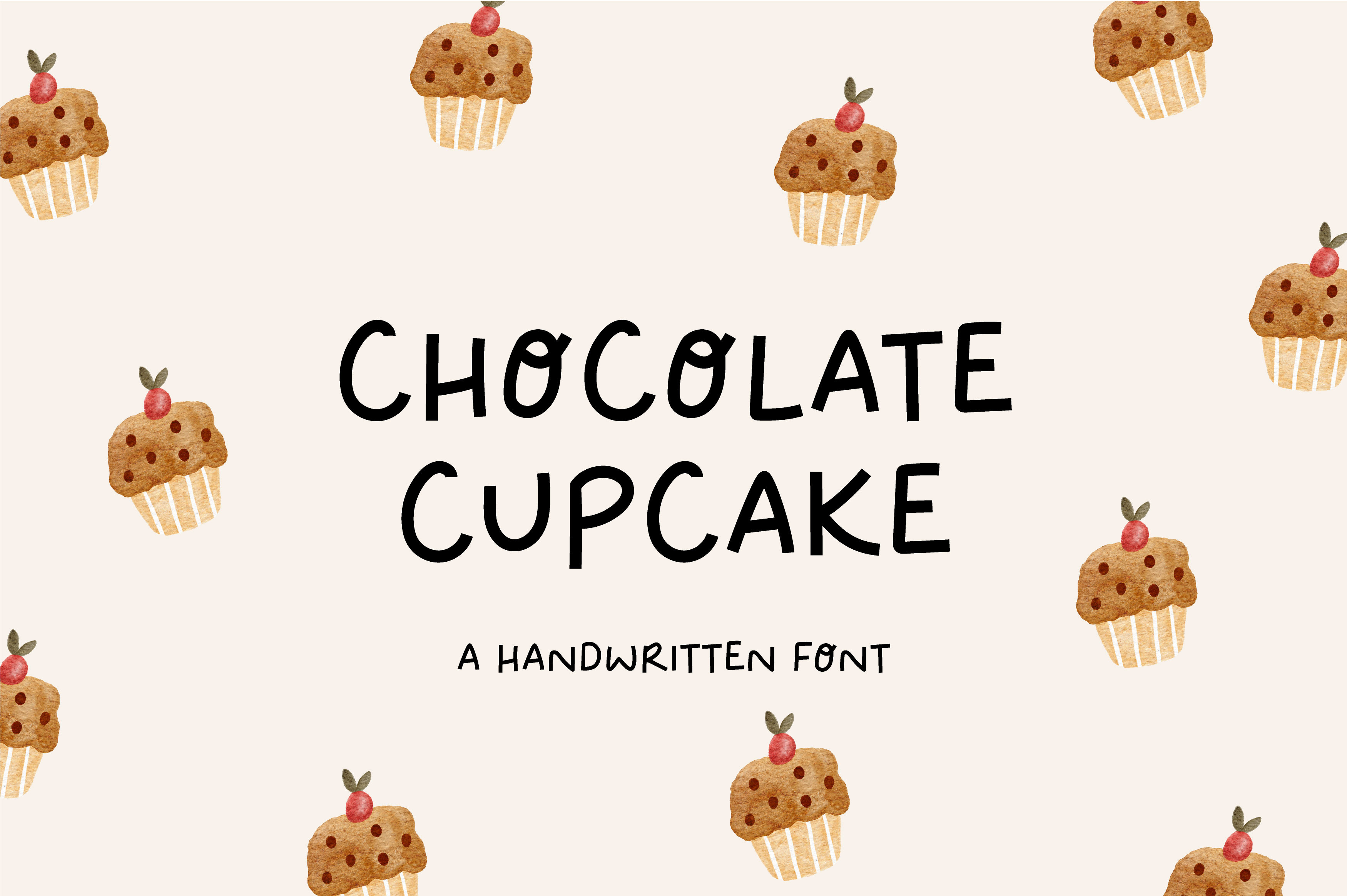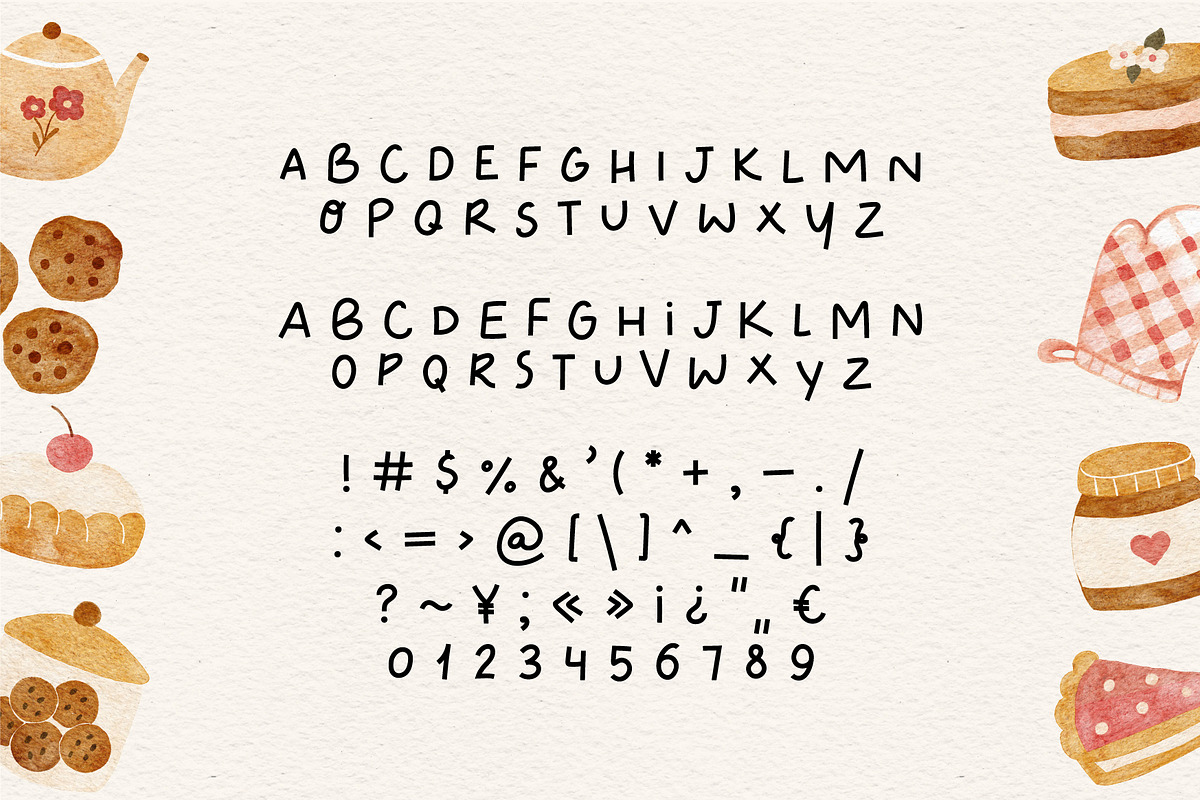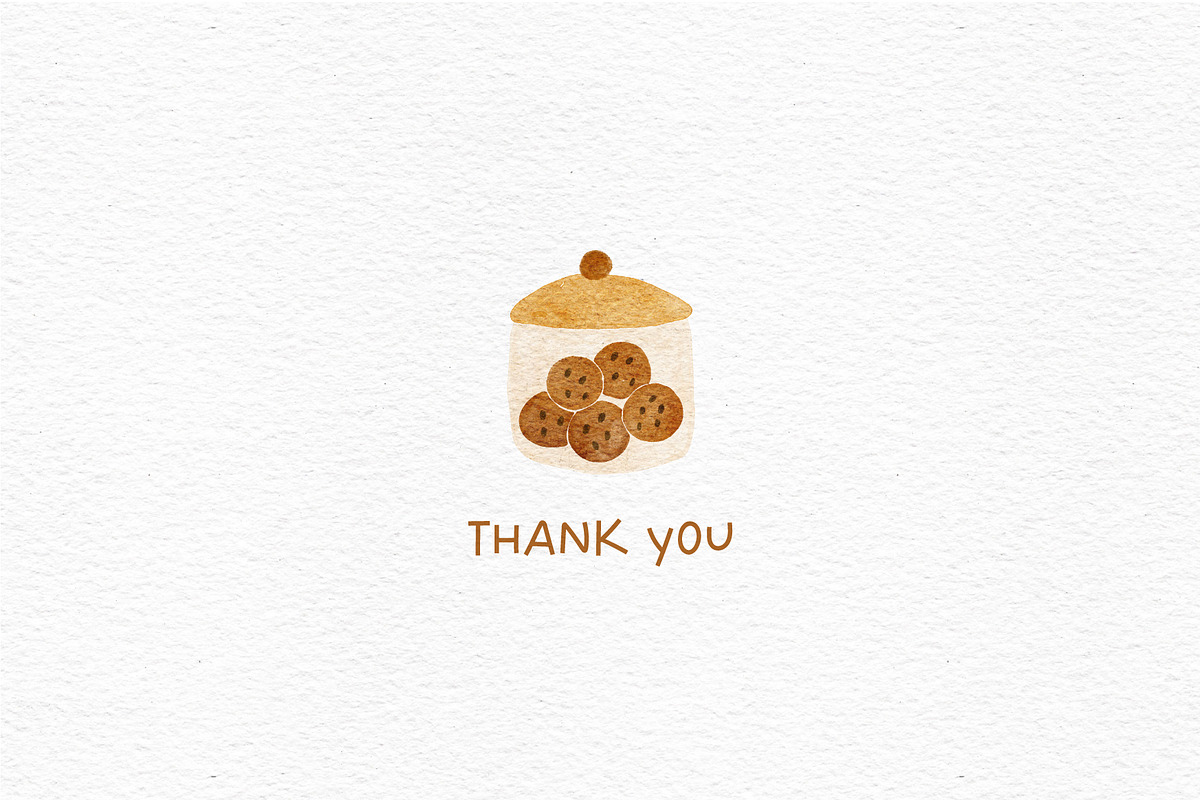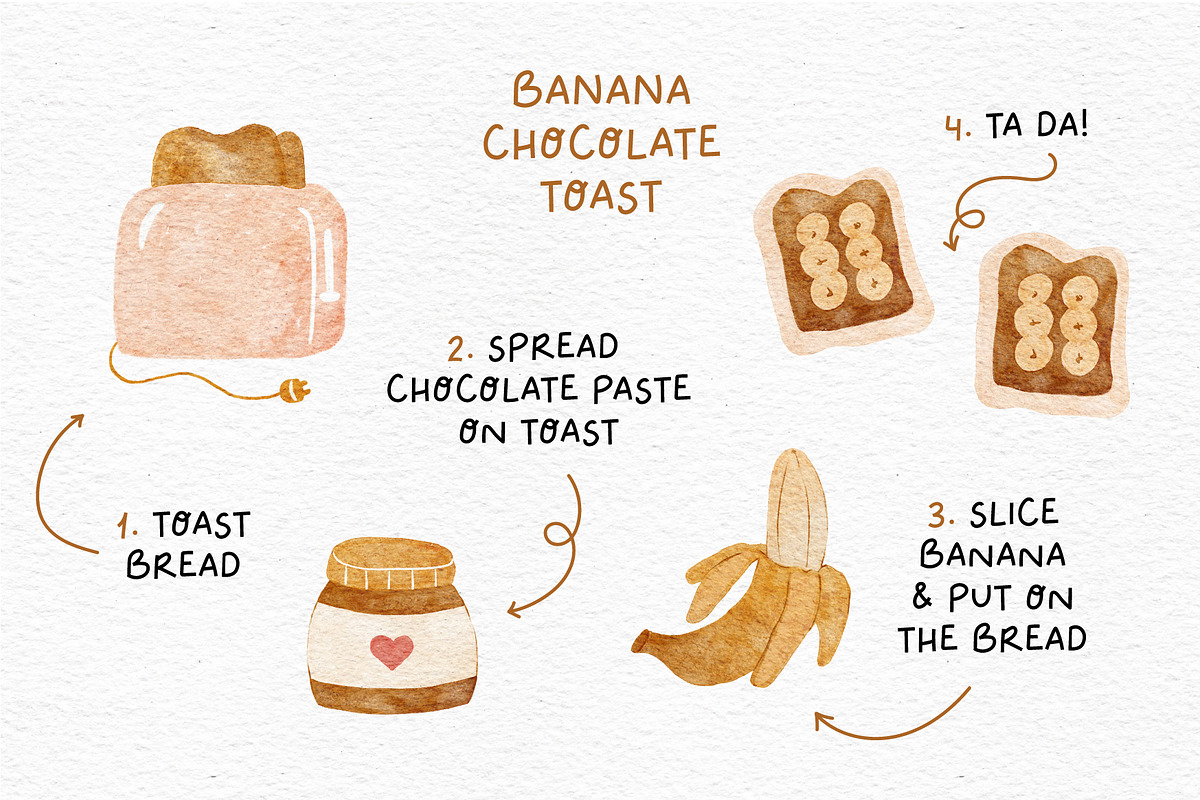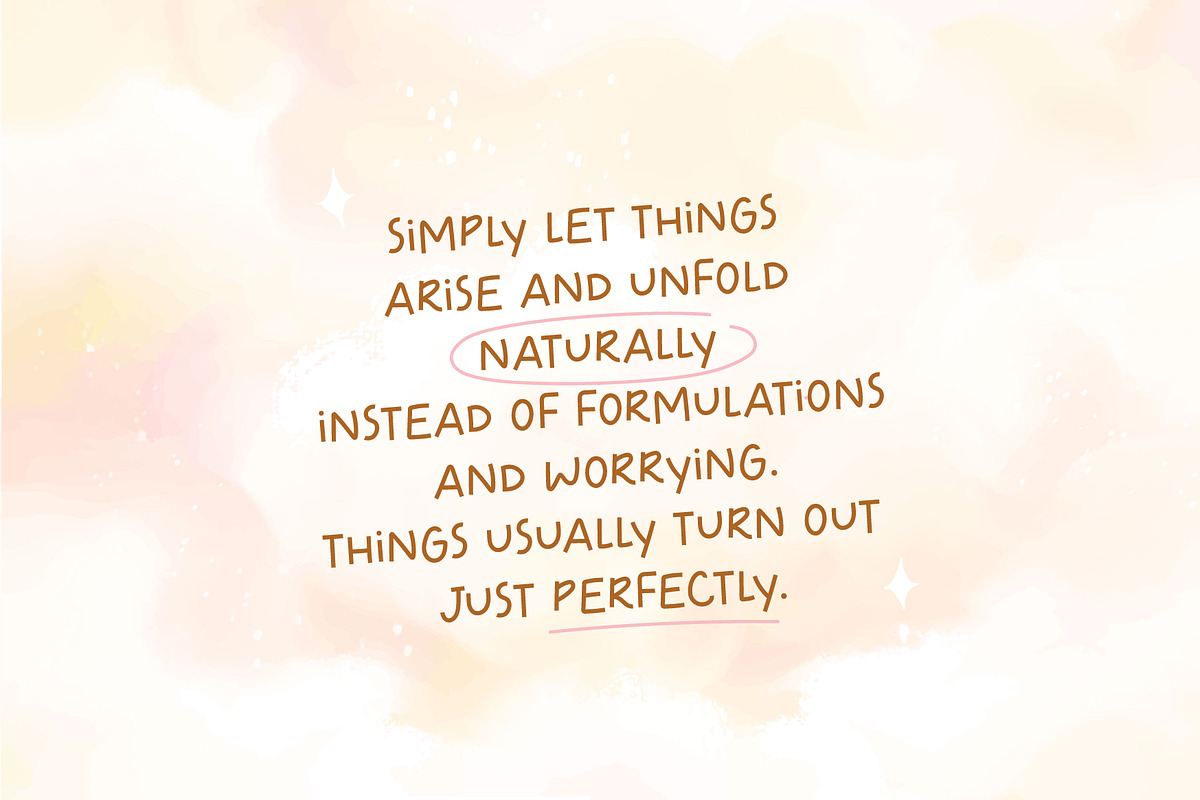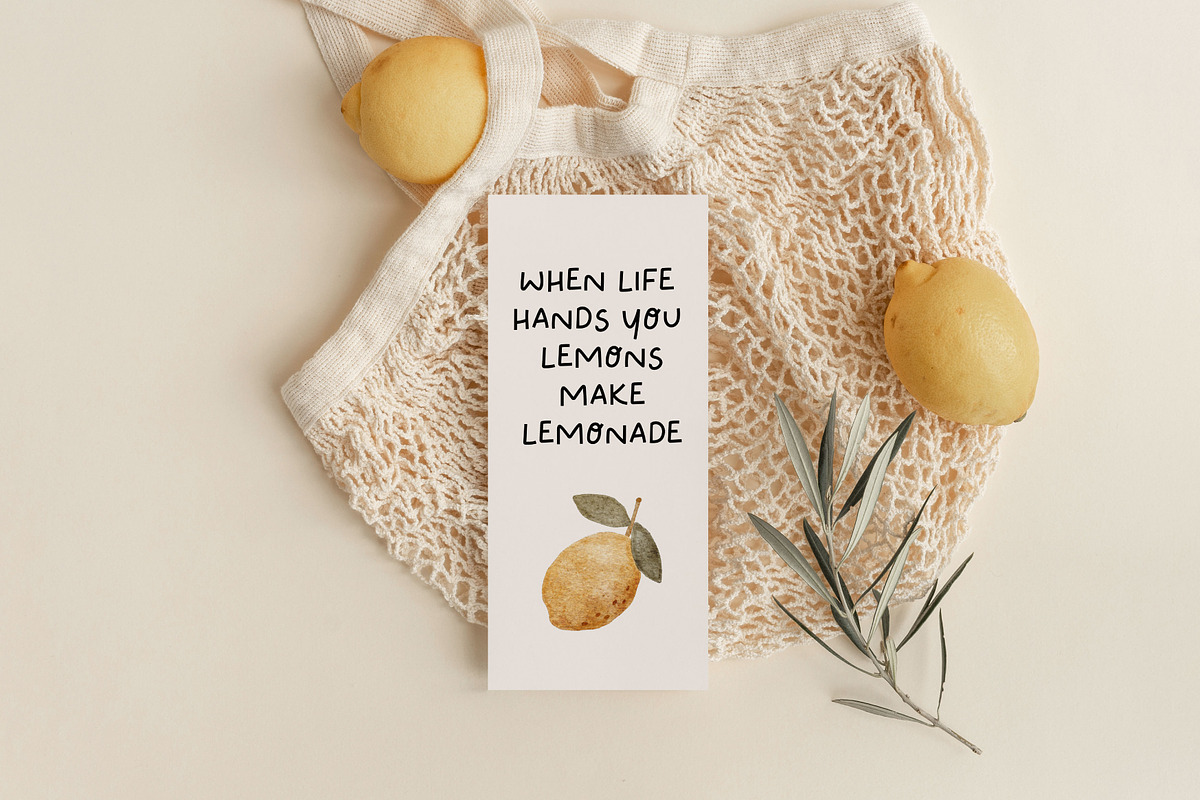
Chocolate cupcake | Handwritten font
Use for logos, quotes, invitations, greeting cards, journals, posters, clothing and more. This font will make your design looks great and fun!